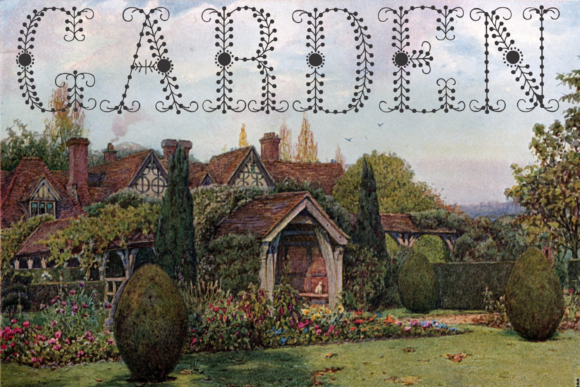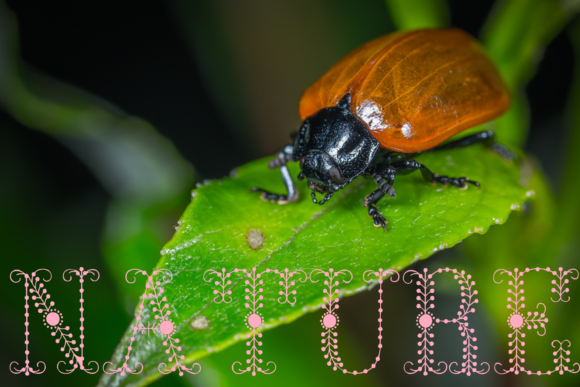
Introduction to Polen Two Font Font
Fonts play a crucial role in design, and the Polen Two Font font is a typeface that brings both character and versatility to any project. Whether you’re working on a branding project, a website, or a print design, the Polen Two Font font offers a unique style that can elevate your work.
| 📌 Font Name | Polen Two Font |
| 👤 Author | Intellecta Design |
Polen Two is a soft, well elaborated and unusual font design.
This is a great display font, and works best when used specifically for displays and headlines .
Key Features of Polen Two Font Font
Why Choose Polen Two Font Font?
The Polen Two Font font is more than just a typeface – it’s a design tool that helps you communicate your message with style and clarity. Its unique character set and versatile design make it suitable for a wide range of applications, from elegant invitations to bold headlines.
With its carefully crafted letterforms and balanced proportions, the Polen Two Font font ensures readability and visual appeal across all mediums.
What makes Polen Two Font font special?
The Polen Two Font font stands out with its unique design, exceptional readability, and versatility across various design applications.